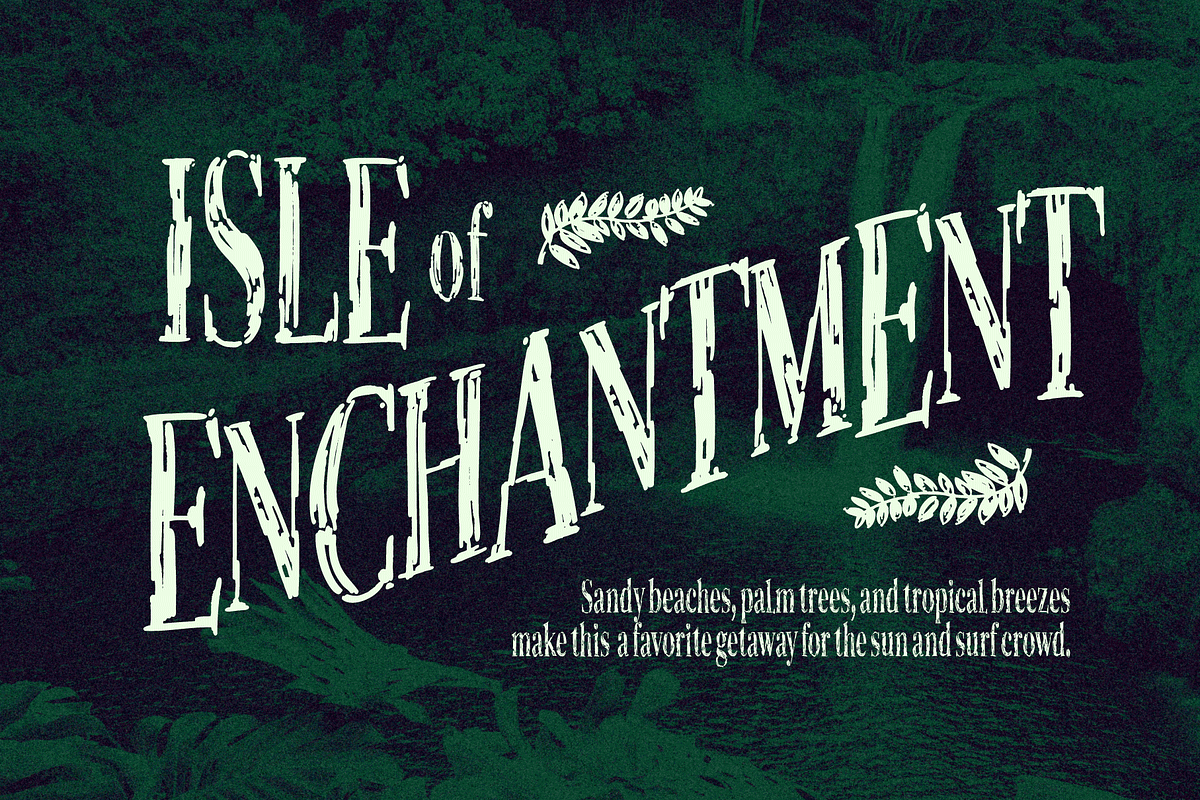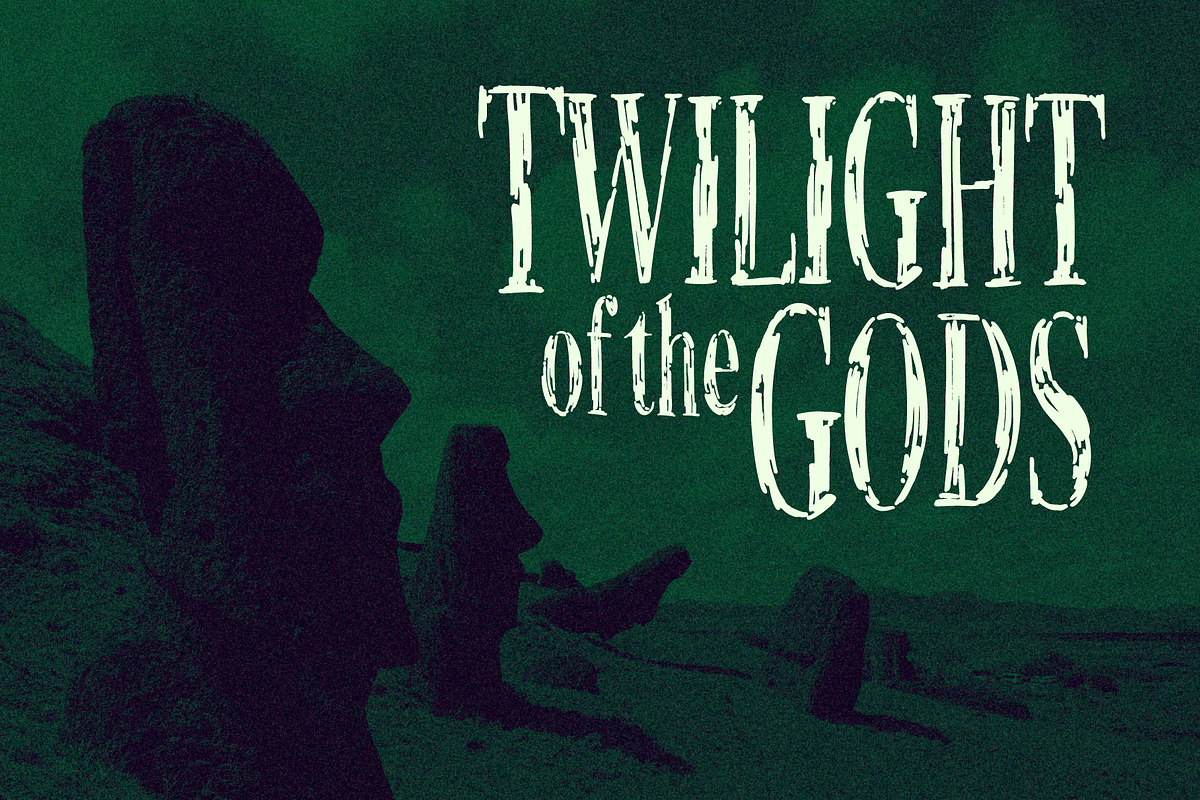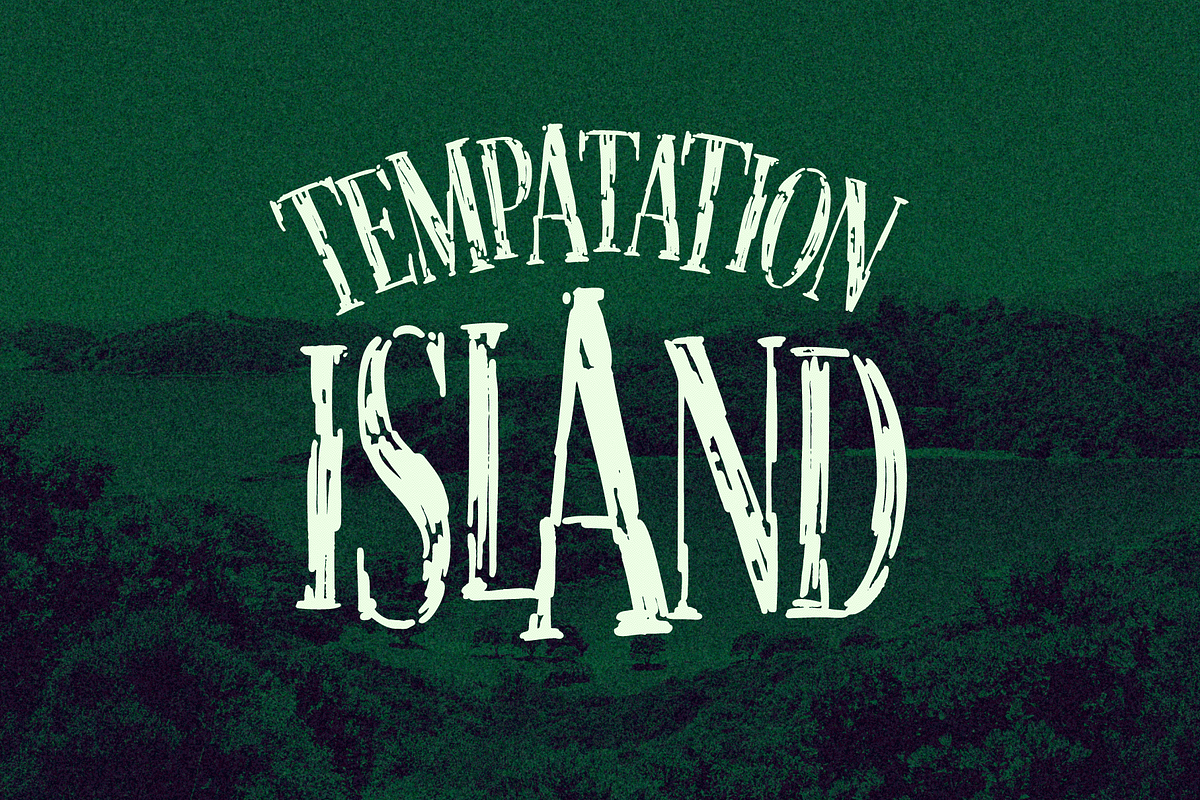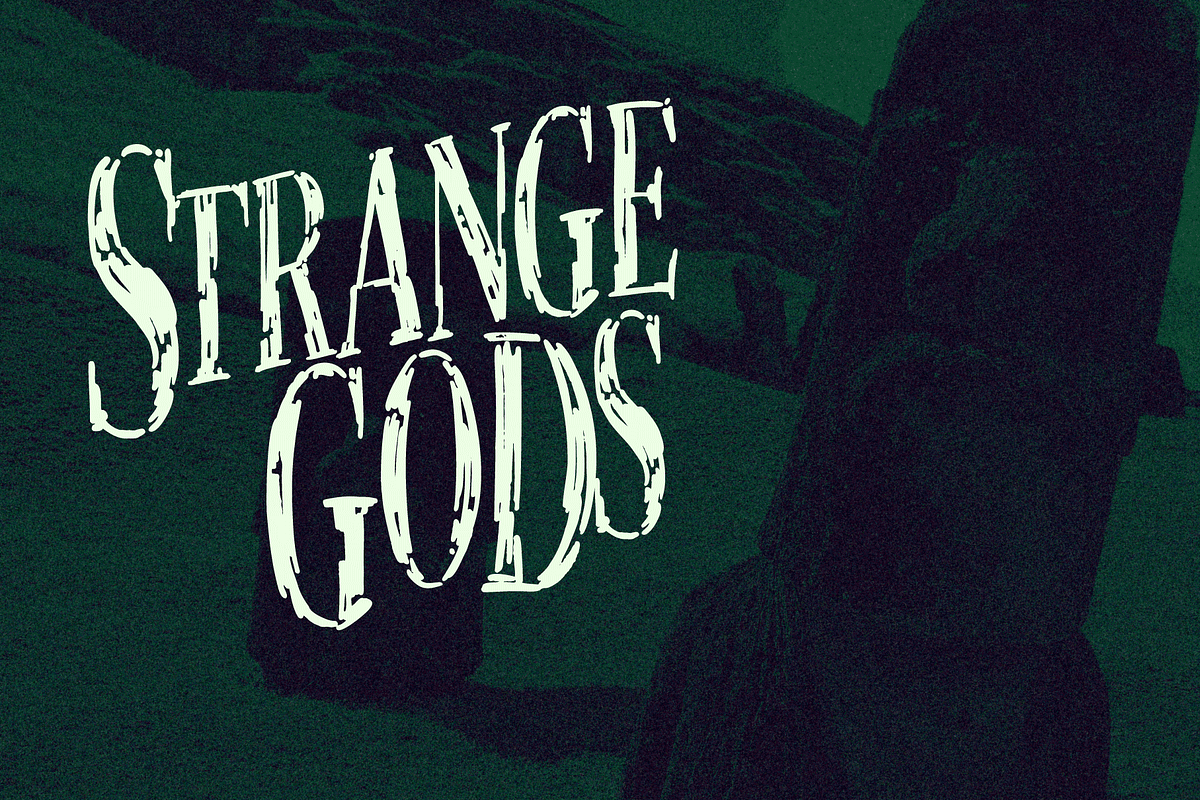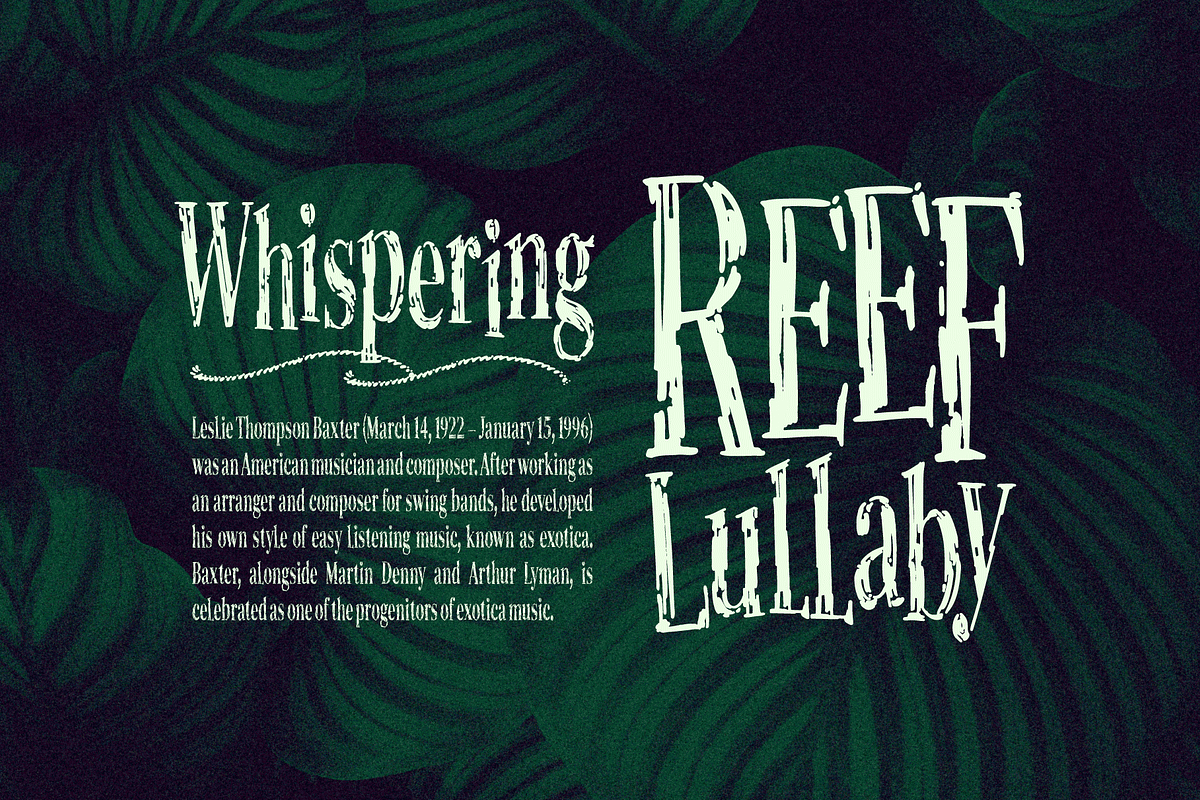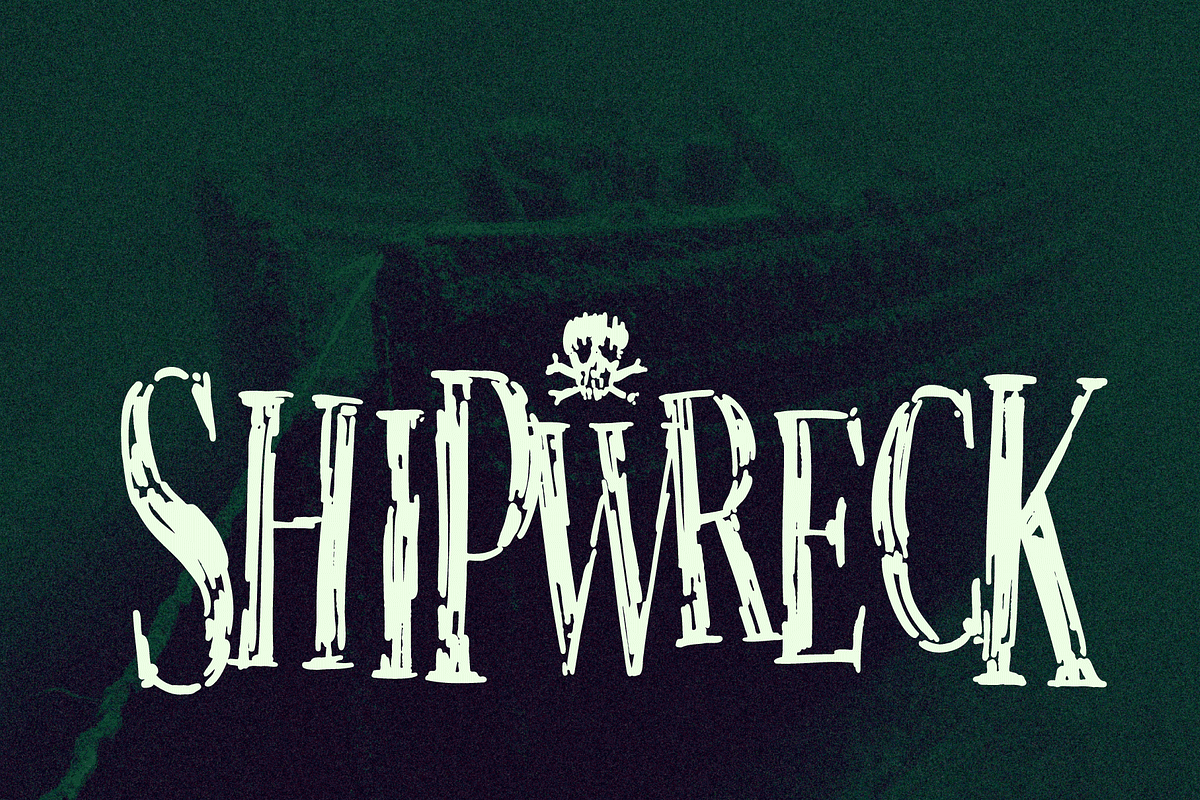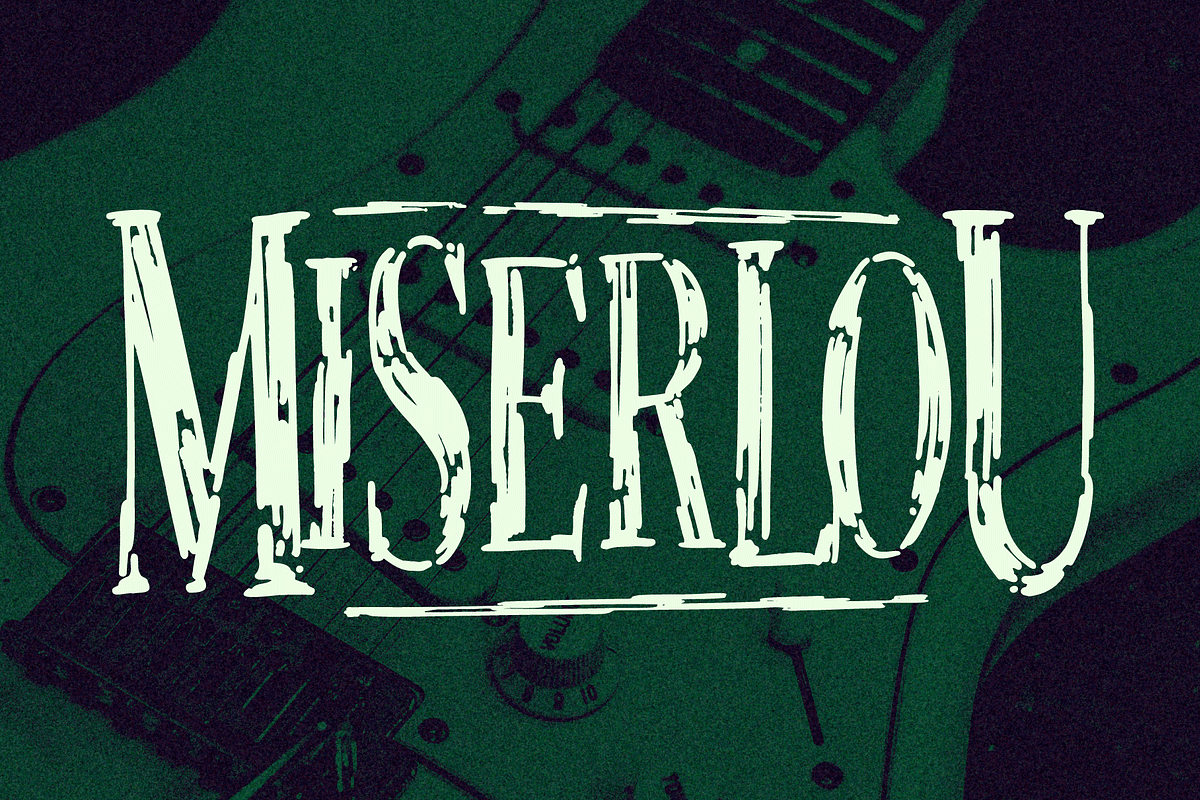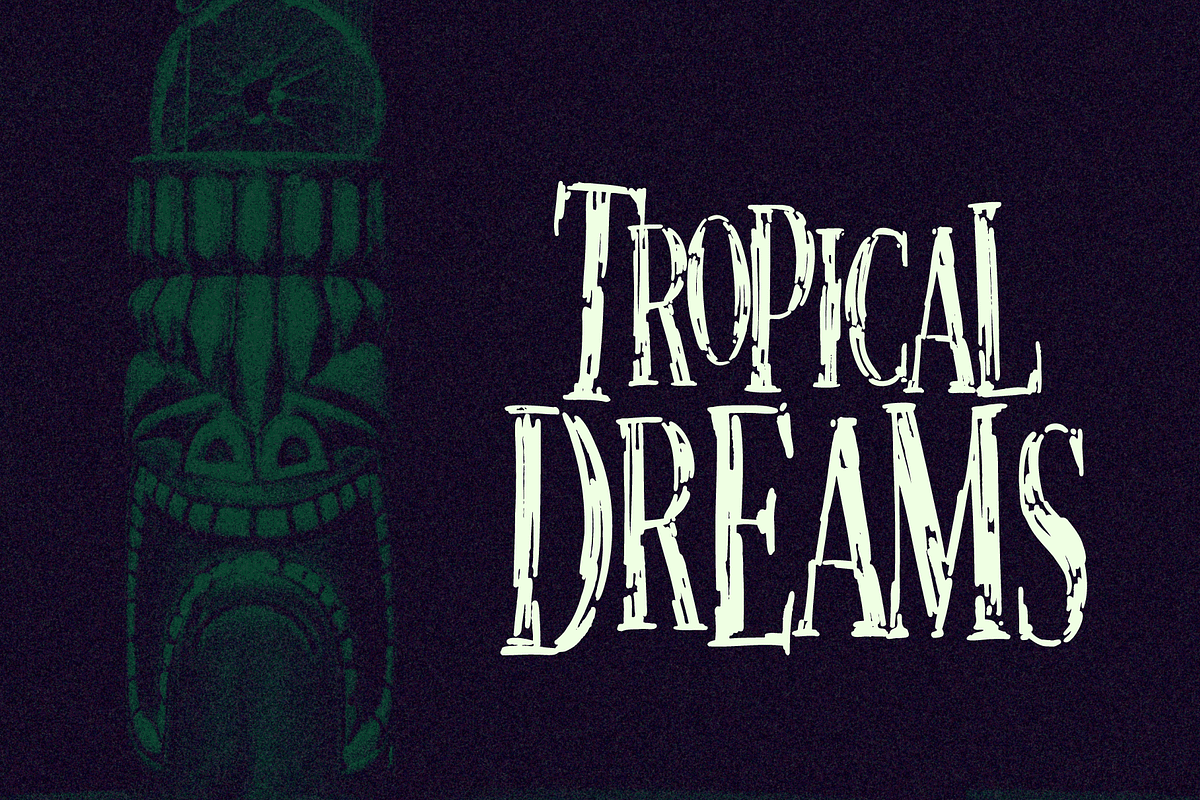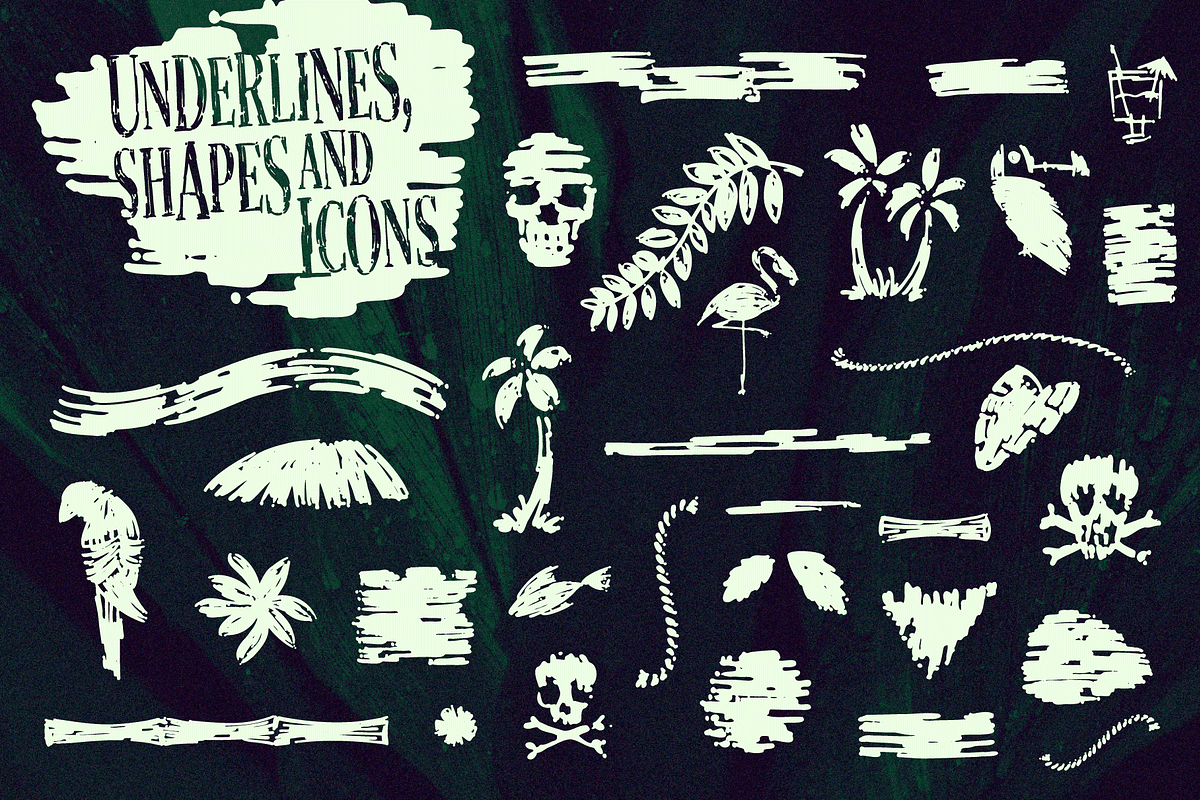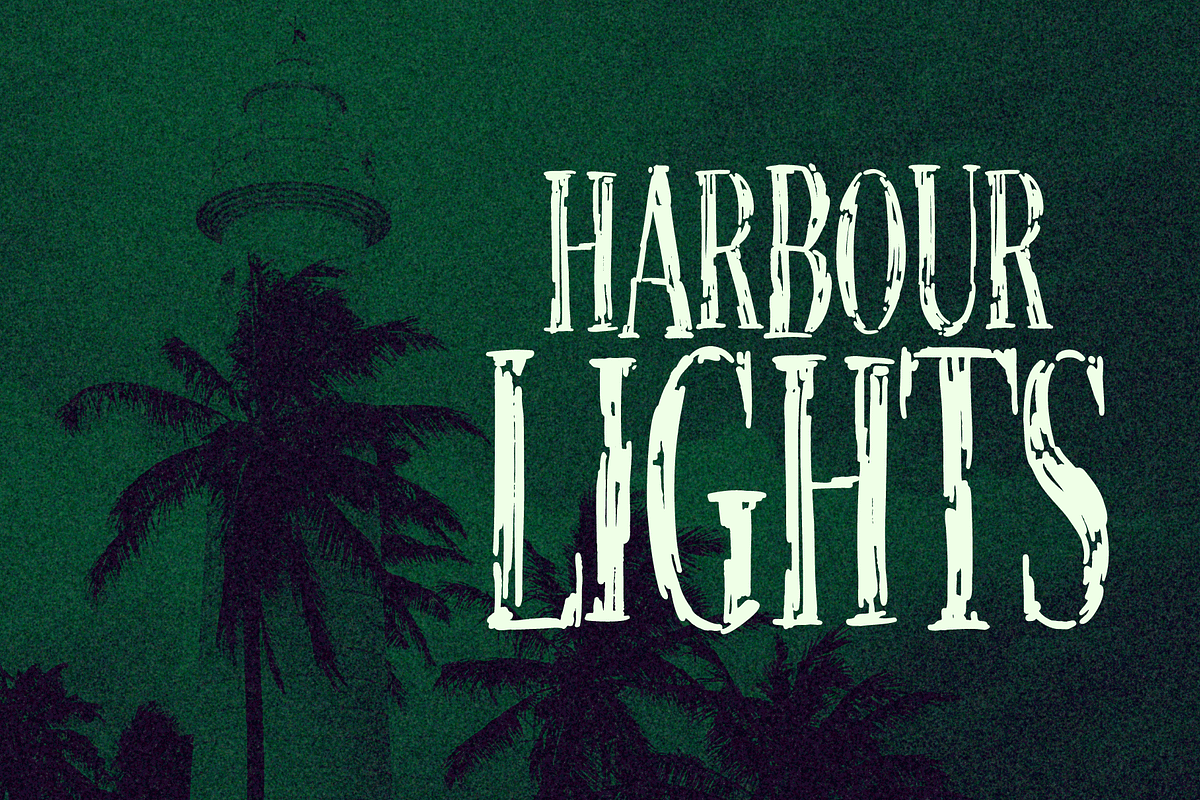
The Phantom Isles: Retro Tiki Font
A Textured Retro Font Inspired by Tropical Tiki Style and South Sea Adventures!
The Phantom Isles is a hand-drawn font inspired by 1950s Tiki culture and tales of exotic locations and south sea adventures. It features the textured look of weathered wood and is the perfect choice for book covers, movie titles, theme parks or vintage themed events.
The font includes a complete set of uppercase and lowercase characters, along with numbers, punctuation, symbols and language support. You’ll also find a set of specially illustrated underlines, shapes and icons including flora and fauna, old rope, skulls and more.
A Brief History of Tiki Culture
Originating from Māori mythology, a tiki is a wooden or stone carving that represents deified ancestors found in most Polynesian cultures. The mainstream and commercialised Tiki Culture that became popular across America from the 1930s to 50s was inspired by the sentimental appeal of an idealised South Pacific, particularly Hawaii, as viewed through the experiences of those who had visited such areas during World War II and cinematic depictions of beautiful scenery, forbidden love and the potential for danger. Over time it selectively incorporated more cultural elements of other regions that affected Polynesia, such as Southeast Asia.
The Americanised form of Tiki Culture maintains a dedicated following today, particularly among those interested in 1950s graphic and interior design, history and the escapist lounge aesthetic it inspires.